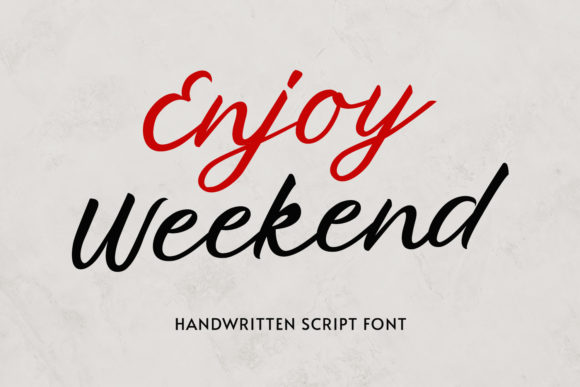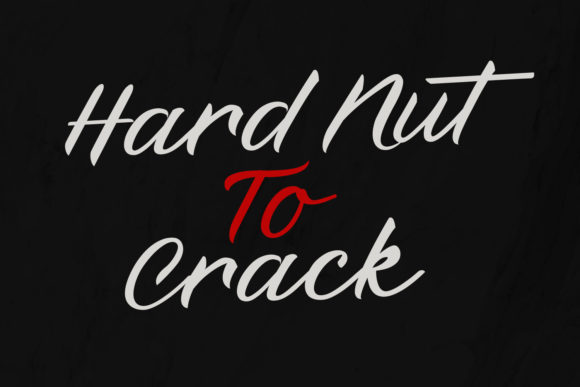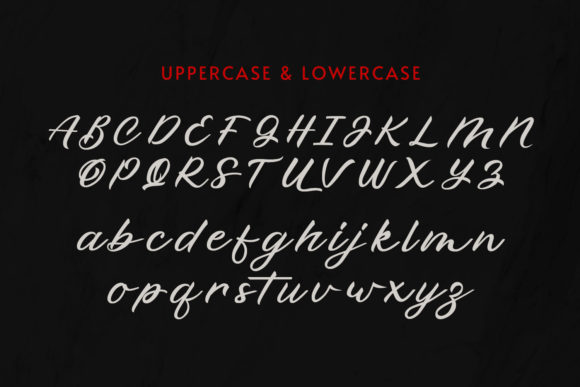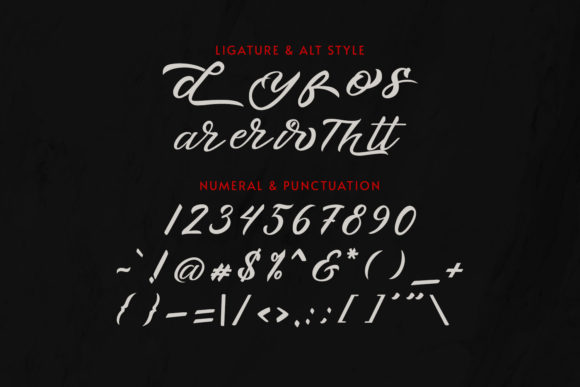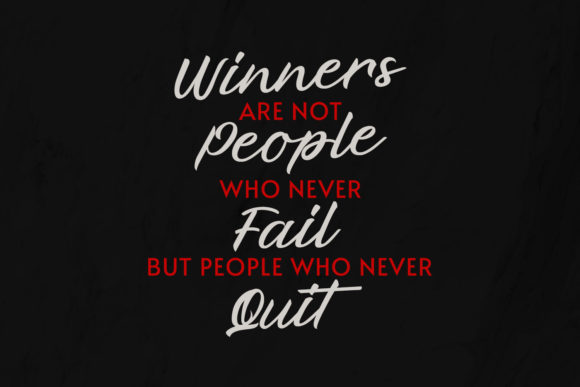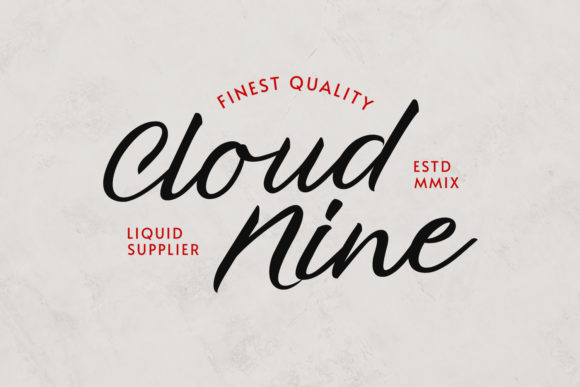
Beyondy Font: Elevate Your Designs with a Bold and Cursive Handwritten Style
In the world of typography, fonts play a crucial role in conveying the tone and personality of a design. For designers and crafters looking to add a touch of nostalgia and sophistication to their work, Beyondy Font is an excellent choice. This beautiful, bold, and cursive handwritten font is designed to make a statement, exuding strength, confidence, and dynamism.
What Makes Beyondy Font Stand Out?
Beyondy Font is a unique and eye-catching typeface that boasts a distinctive character. Its bold and cursive style gives it a sense of fluidity and movement, making it perfect for designs that require a touch of elegance and sophistication. The font’s strong and confident appearance makes it ideal for headlines, titles, and other display text, while its nostalgic feel adds a touch of warmth and personality to any design.
Key Features of Beyondy Font
- Bold and Cursive Style: Beyondy Font features a bold and cursive style that gives it a sense of movement and fluidity.
- Strong and Confident Appearance: The font’s strong and confident appearance makes it perfect for headlines, titles, and other display text.
- Nostalgic Character: Beyondy Font has a nostalgic feel that adds a touch of warmth and personality to any design.
- Handwritten Style: The font’s handwritten style gives it a personal and human touch, making it perfect for designs that require a touch of personality.
Uses of Beyondy Font
Beyondy Font is a versatile typeface that can be used in a variety of design projects, including:
- Branding and Logo Design: The font’s bold and confident appearance makes it perfect for logos and branding materials.
- Headlines and Titles: Beyondy Font is ideal for headlines and titles, adding a touch of elegance and sophistication to any design.
- Packaging Design: The font’s nostalgic feel makes it perfect for packaging design, adding a touch of warmth and personality to product labels and packaging.
- Stationery and Invitations: Beyondy Font is a great choice for stationery and invitations, adding a touch of elegance and sophistication to any design.
Tips for Using Beyondy Font
To get the most out of Beyondy Font, here are a few tips to keep in mind:
- Use it as a Display Font: Beyondy Font is perfect for display text, such as headlines and titles. Use it to add a touch of elegance and sophistication to your design.
- Pair it with a Simple Font: To create visual interest, pair Beyondy Font with a simple font for body text. This will help to create a clear hierarchy of information and add contrast to your design.
- Experiment with Colors: Beyondy Font looks great in a variety of colors, so don’t be afraid to experiment and find the perfect hue for your design.
Beyondy Font is a beautiful, bold, and cursive handwritten font that is perfect for designers and crafters looking to add a touch of nostalgia and sophistication to their work. With its strong and confident appearance, nostalgic character, and versatile uses, Beyondy Font is an excellent choice for a wide range of design projects. Whether you’re looking to create a bold and eye-catching headline or add a touch of elegance to your packaging design, Beyondy Font is sure to impress.